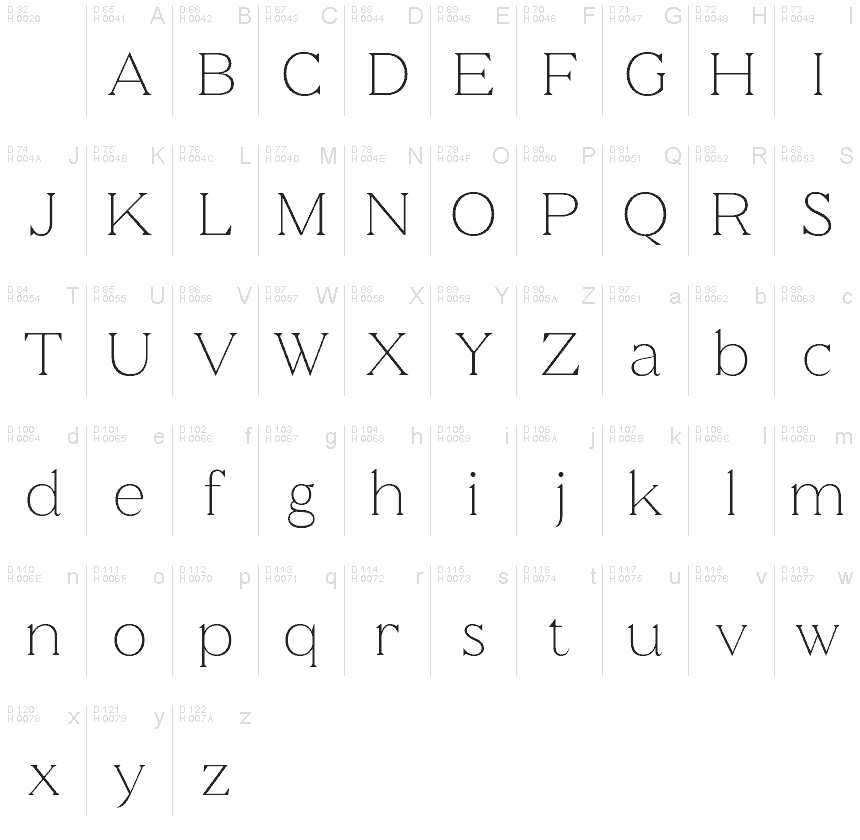
CS Wilona Demo Regular
CS Wilona font is a light serif by Craft Supply Co. Influenced by both old-style and modern characteristics, the typeface is classic yet elegant and refined. Its letters have a sophisticated, professional appearance; however, legibility remains intact in both small and large sizes. Vertical contrast between thick/thin strokes alongside the condensed width contributes to an overall polished look.
CS Wilona can be used for fashion magazines, book covers or pages, branding projects including logos and packaging designs as well web/desktop/app typography. Titles/subtitles, blogs, newsletters that feature modern content as well as wedding invitations and posters will greatly benefit from this free visual tool.